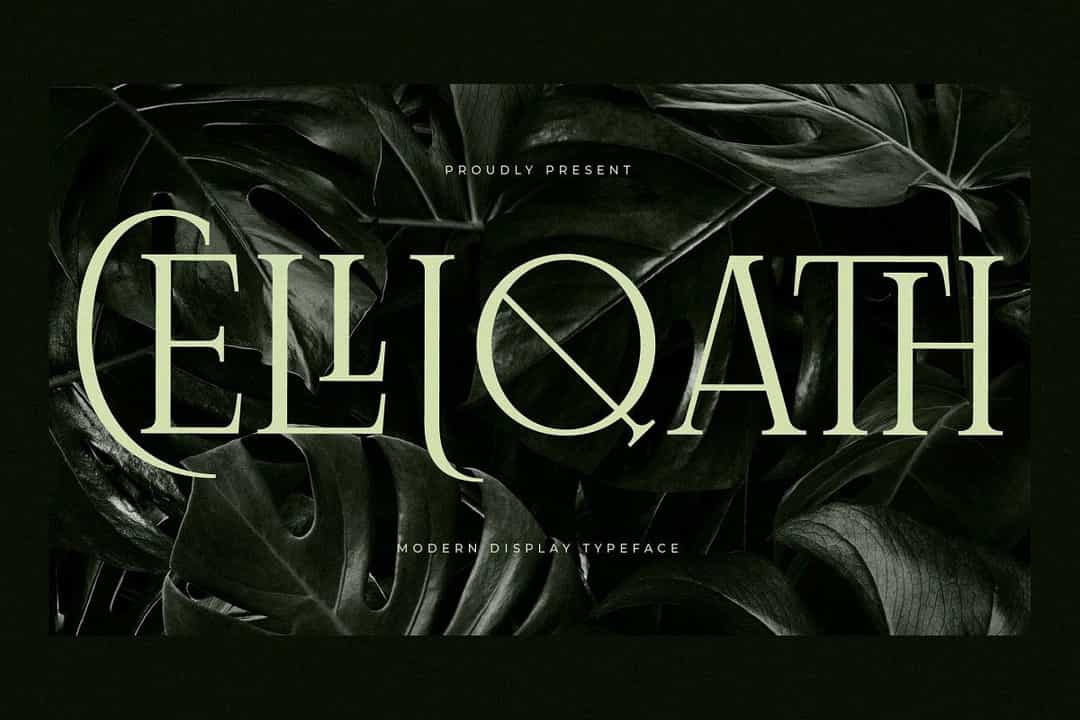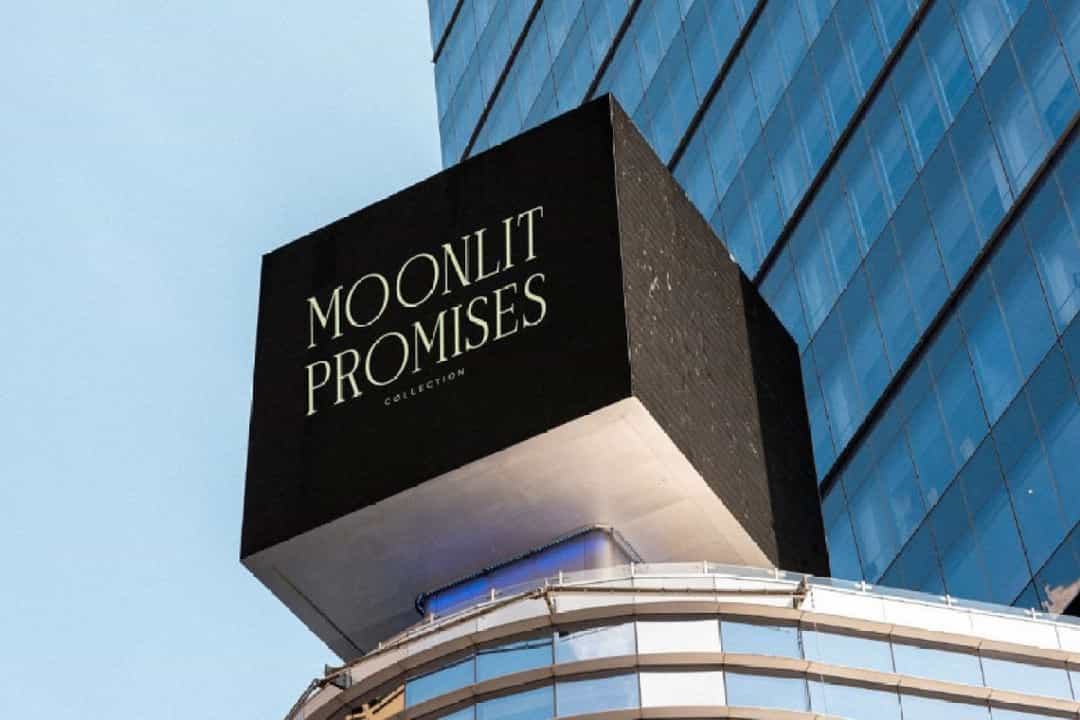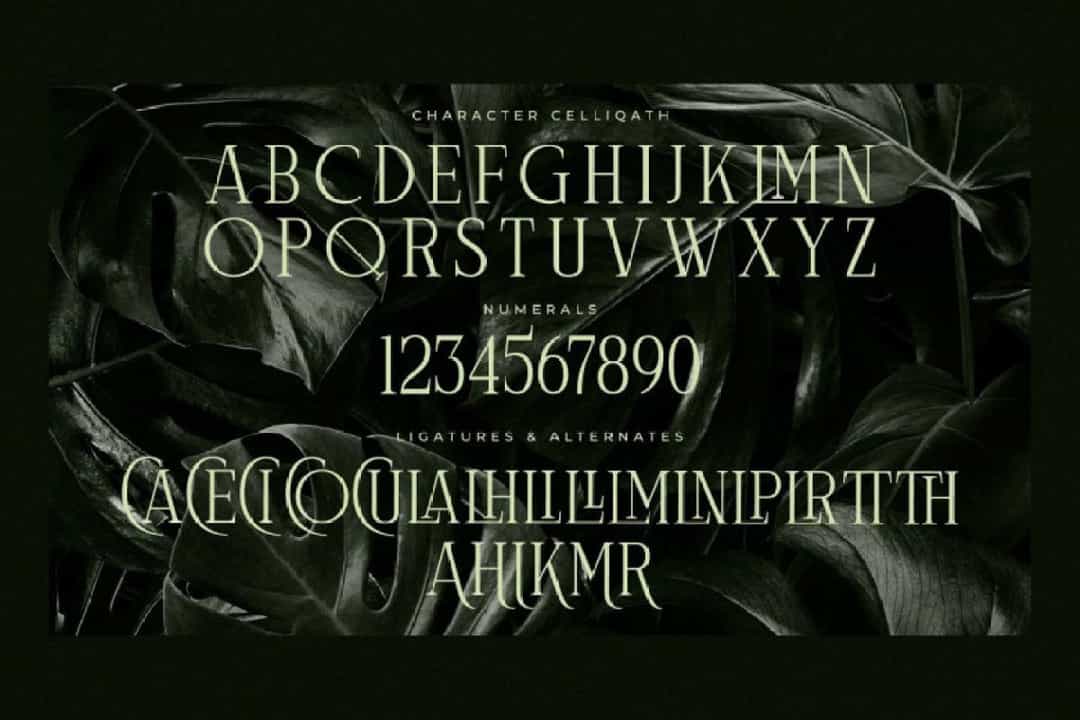
Celliqath is a modern yet traditional display serif font with its distinct style and contemporary appearance, perfect for creating sophisticated logos, book/film name designs, fashion brand clothing designs, magazine letters/quotes etc.